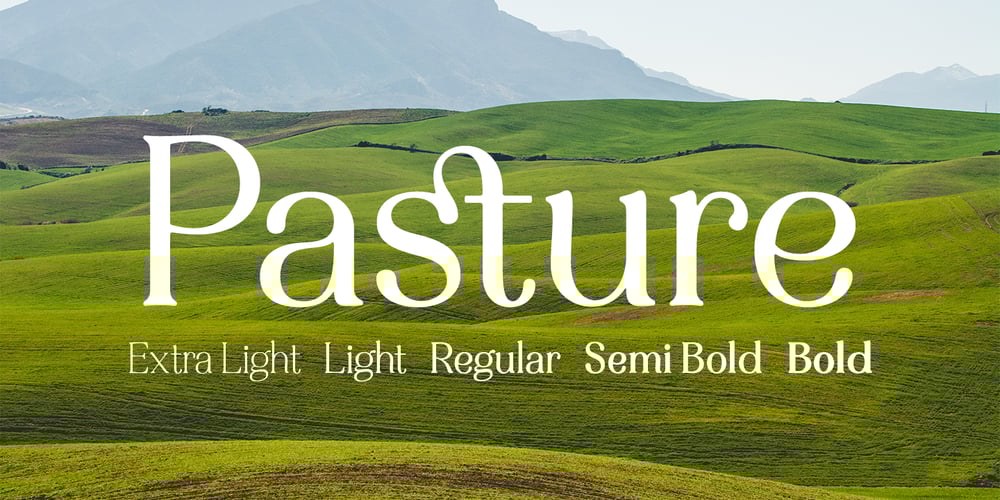
Pasture Font Family was designed by Ryan Keightley and published by Ryan Keightley. Pasture contains 5 styles and family package options. Pasture is a display serif in a range of weights. Rounded interior and exterior corners, curvaceous details, and rotund terminals give it a warm, handmade quality. Classic style that is, at the same time, right at home in modern spaces.